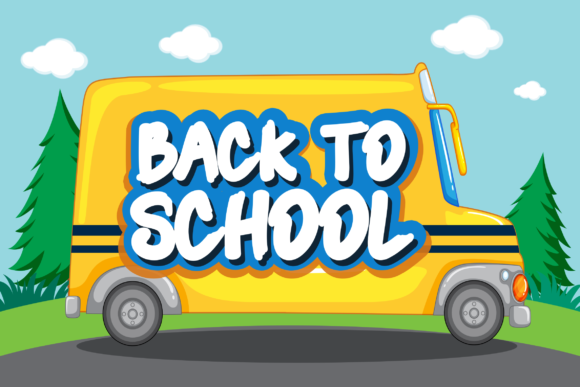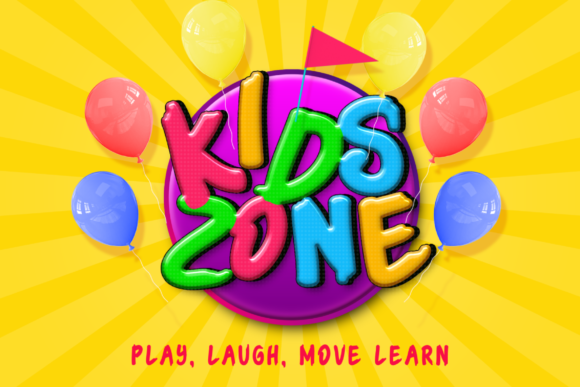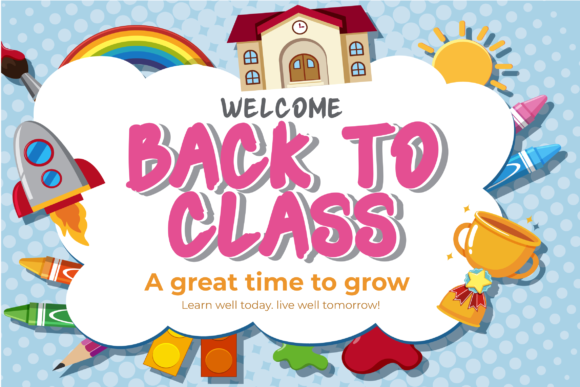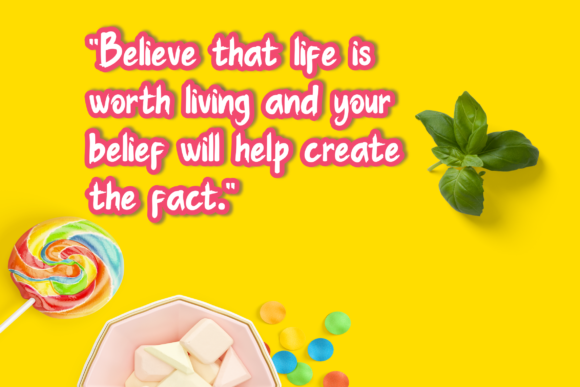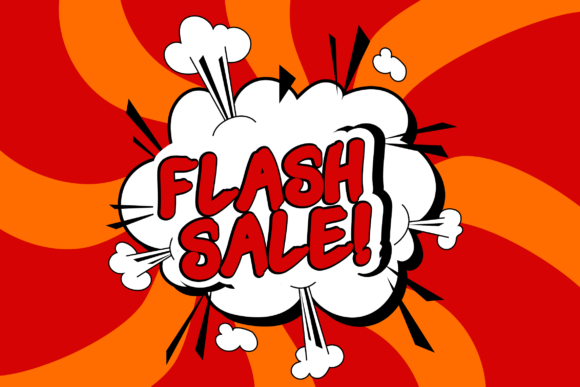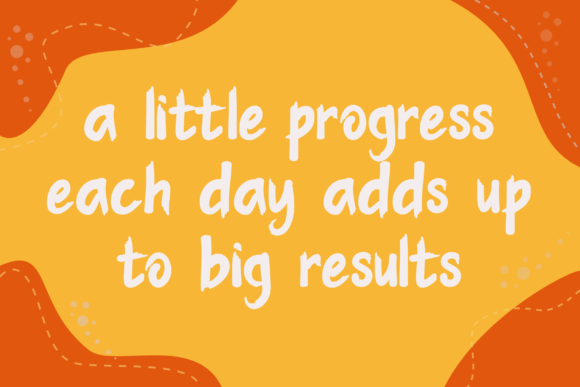
Cimonta Font: The Ultimate Go-To Font for Designers and Crafters
Are you tired of using the same old fonts in your designs? Look no further than Cimonta Font, a cool, brushed, and fun display font that’s perfect for a wide variety of projects. With its neat and simple style, Cimonta Font has the potential to become your new favorite go-to font, no matter the occasion!
What is Cimonta Font?
Cimonta Font is a modern display font that’s designed to add a touch of personality to your designs. Its unique brushed texture gives it a fun and playful feel, making it perfect for projects that require a bit of whimsy. Whether you’re designing a logo, creating a social media graphic, or crafting a DIY project, Cimonta Font is sure to make your design stand out.
Key Features of Cimonta Font
- Cool and Brushed Texture: Cimonta Font features a unique brushed texture that gives it a cool and edgy feel.
- Simple and Neat Style: Despite its bold texture, Cimonta Font has a simple and neat style that makes it easy to read and versatile for a wide range of projects.
- Fun and Playful Feel: Cimonta Font is perfect for projects that require a bit of personality and whimsy.
- High-Quality Design: Cimonta Font is designed with high-quality craftsmanship, ensuring that it looks great in any design.
Why Choose Cimonta Font?
So why choose Cimonta Font over other fonts? Here are just a few reasons:
- Versatility: Cimonta Font is suitable for a wide variety of designs, from logos and social media graphics to DIY projects and more.
- Ease of Use: Cimonta Font is easy to read and works well in both digital and print designs.
- Uniqueness: Cimonta Font has a unique brushed texture that sets it apart from other fonts.
- Time-Saving: With Cimonta Font, you can create professional-looking designs in no time, saving you time and effort.
How to Use Cimonta Font
Using Cimonta Font is easy! Here are a few tips to get you started:
- Pair it with Other Fonts: Cimonta Font pairs well with other fonts, so feel free to experiment with different combinations.
- Use it for Headings: Cimonta Font is perfect for headings and titles, where its bold texture can really shine.
- Add a Personal Touch: Use Cimonta Font to add a personal touch to your designs, whether you’re creating a logo or a social media graphic.
Design Ideas Using Cimonta Font
- Logo Design: Use Cimonta Font to create a unique and memorable logo for your business or brand.
- Social Media Graphics: Cimonta Font is perfect for social media graphics, where its bold texture can really stand out.
- DIY Projects: Use Cimonta Font to add a personal touch to your DIY projects, such as handmade cards or gift tags.
- Poster Design: Cimonta Font is great for poster design, where its bold texture can really make your message stand out.
In conclusion, Cimonta Font is a cool, brushed, and fun display font that’s perfect for designers and crafters alike. With its neat and simple style, Cimonta Font has the potential to become your new favorite go-to font, no matter the occasion! So why not give it a try and see what amazing designs you can create?